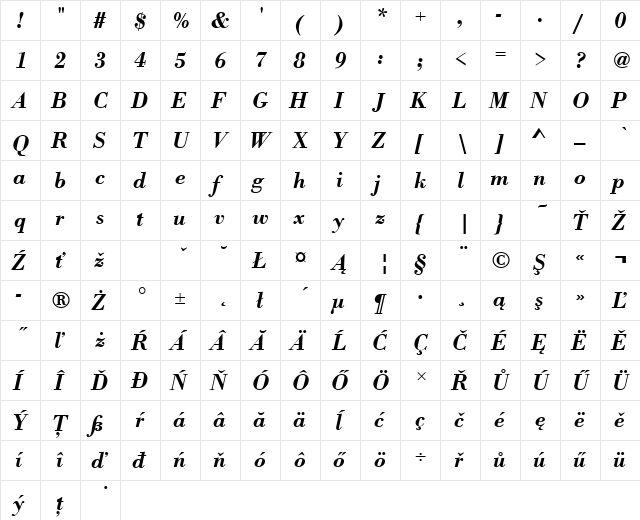
BodoniAntTEEDemBol Italic
Design Context for BodoniAntTEEDemBol Typeface
BodoniAntTEEDemBol is a composed and adaptable typeface that performs quietly and consistently across a wide range of design contexts. The slanted form adds forward momentum and visual energy.
Pro Tip: Use BodoniAntTEEDemBol for emphasis, pull quotes, and subheadings where its slanted energy can add rhythm to the layout.